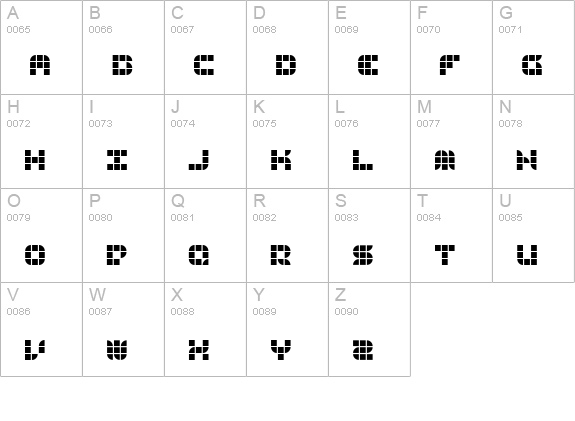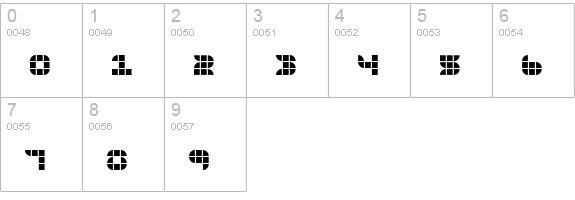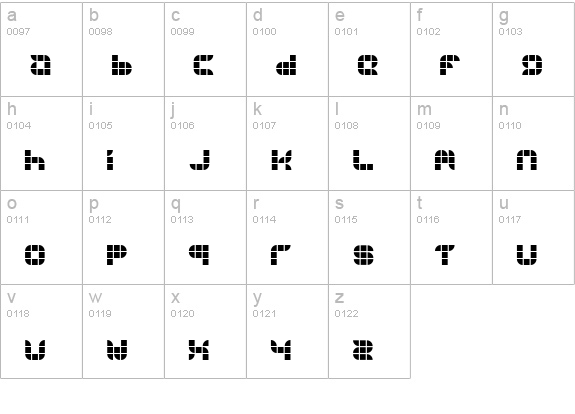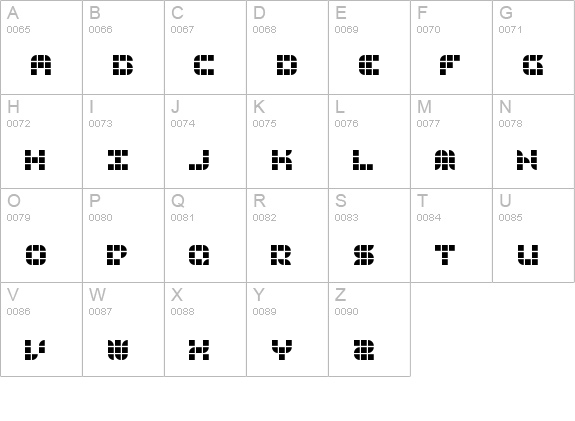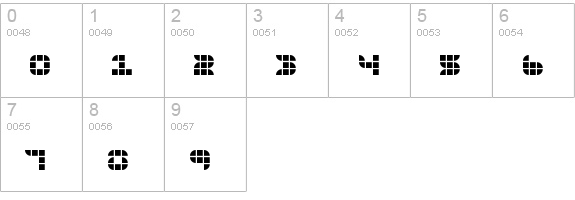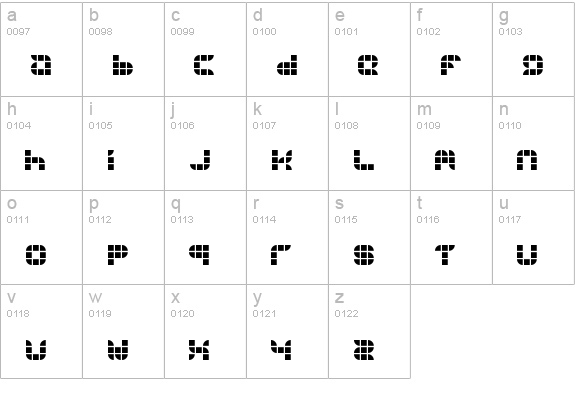
9sqgrd Font Details
The 9sqgrd font is a modern and stylish typeface that combines geometric shapes with a grid-like structure to create a unique and eye-catching design. With its clean lines and sharp edges, this font is perfect for adding a contemporary touch to your projects. The 9sqgrd font is versatile and can be used for a variety of purposes, including logos, branding, posters, and more. Best of all, the 9sqgrd font is available for free download at FontsMarket.com. This means you can easily access this stunning font without any cost, making it a great choice for designers and creatives looking to enhance their work without breaking the bank. Download the 9sqgrd font today and elevate your designs with its sleek and modern aesthetic.